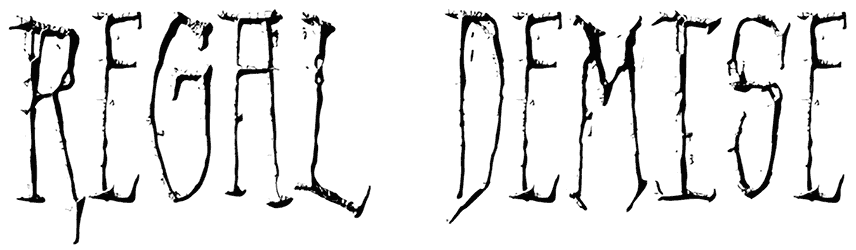
Regal Demise Font
Have you ever been involved in terrible text design? Well, here, one of the best ones is hosting you. Regal Demise as a horror font happens on RB for free. Places it will stand out are book covers, movie titles, Halloween posters, serials, and other kinds of stuff.
This all-caps font has the potential to highlight any project that asks for a horror theme. Our checklist provides you with a boatload of chances.